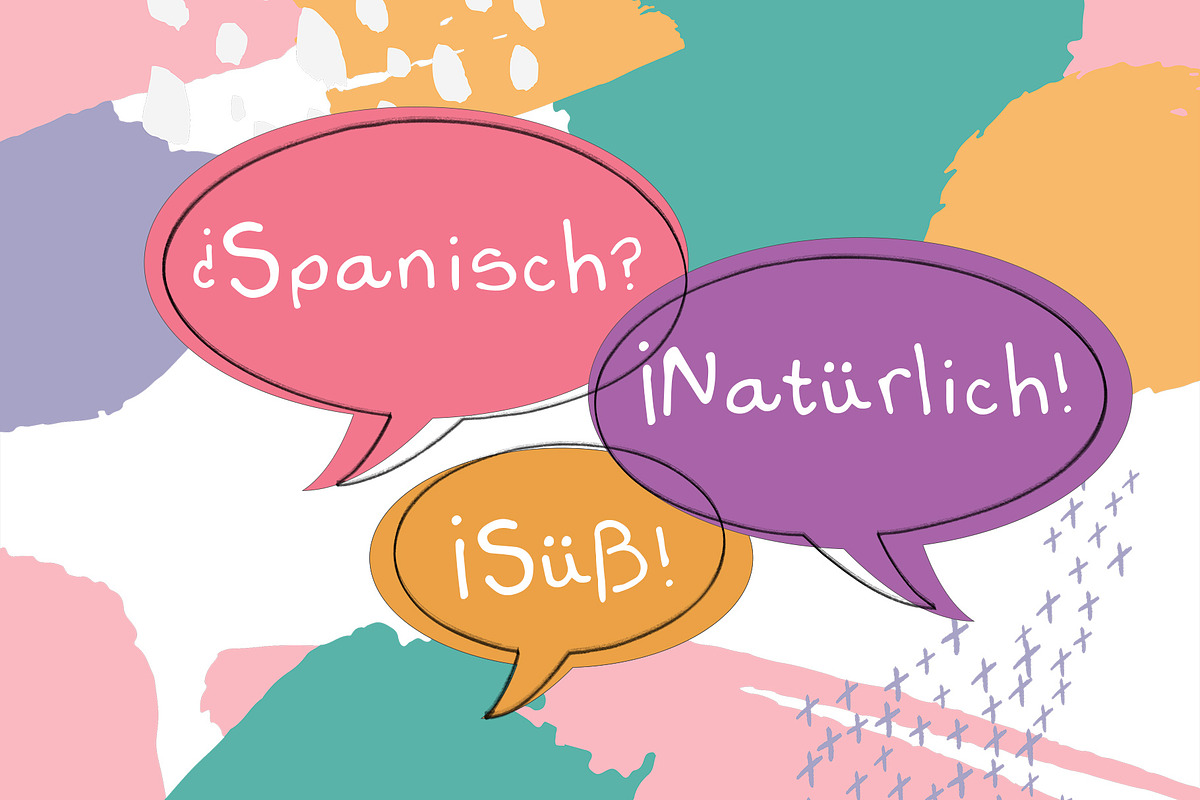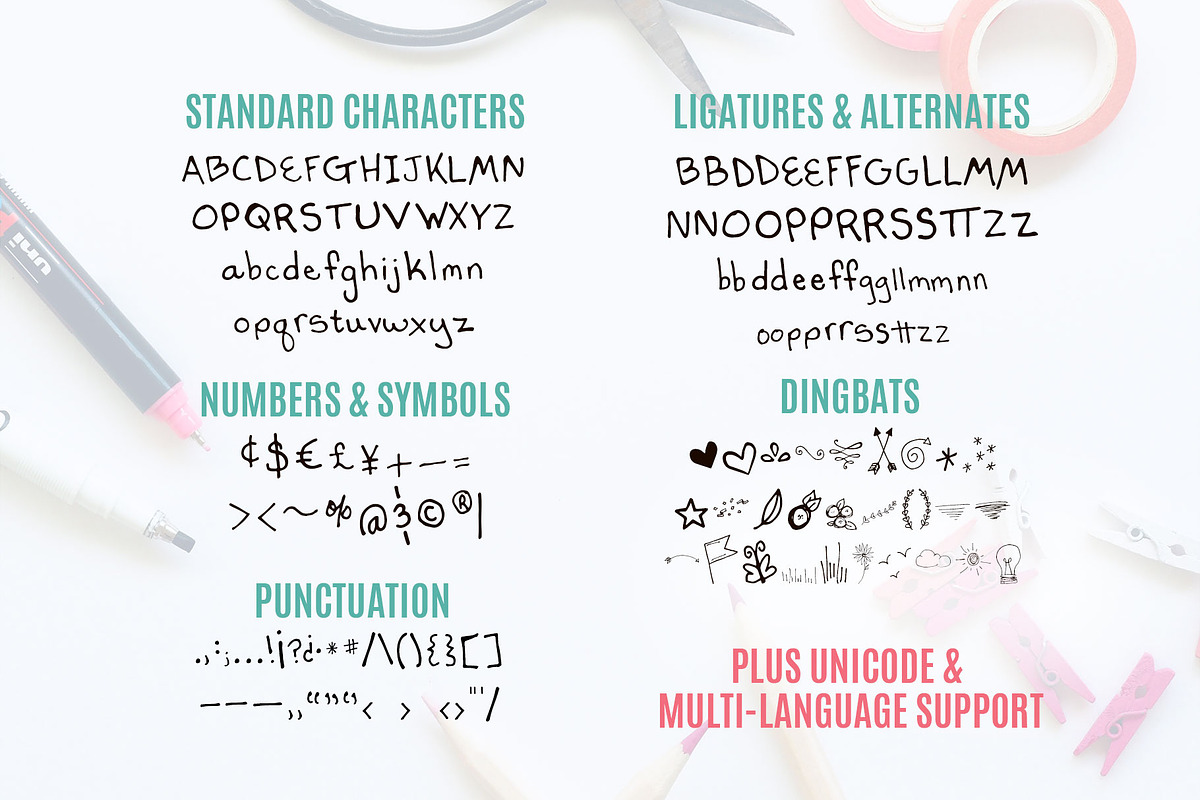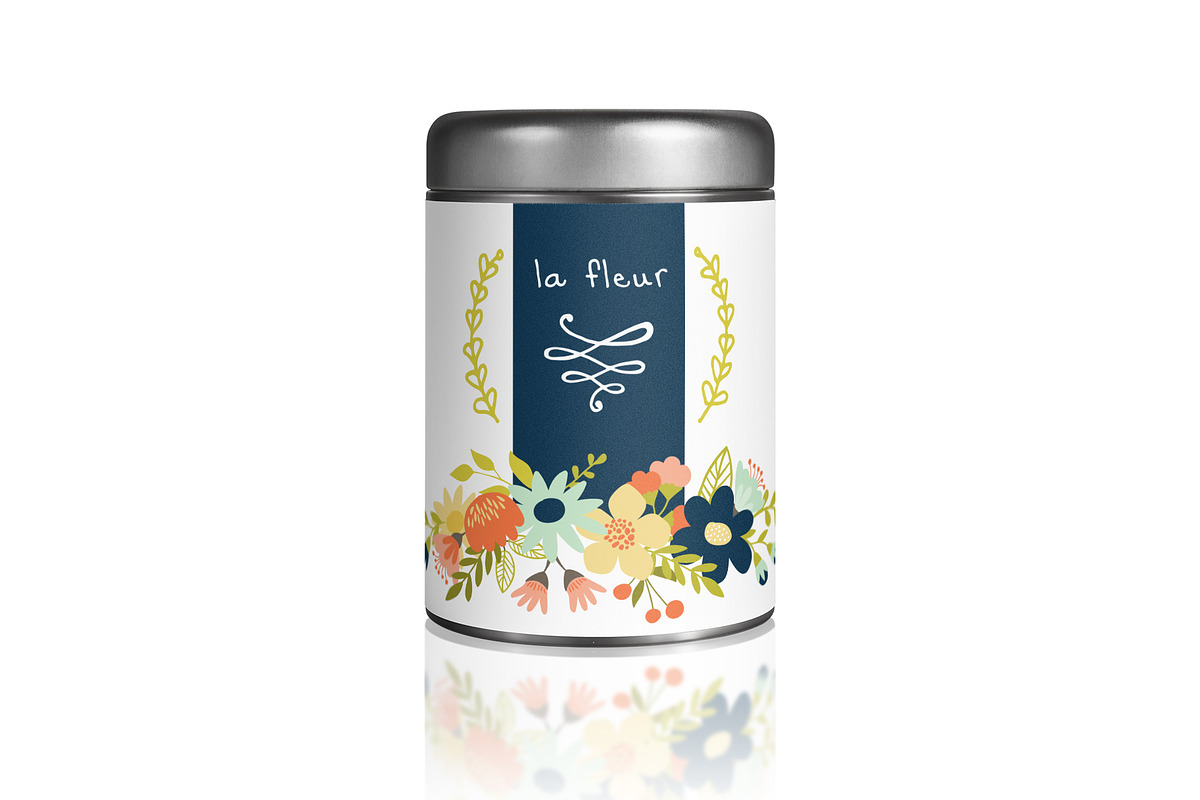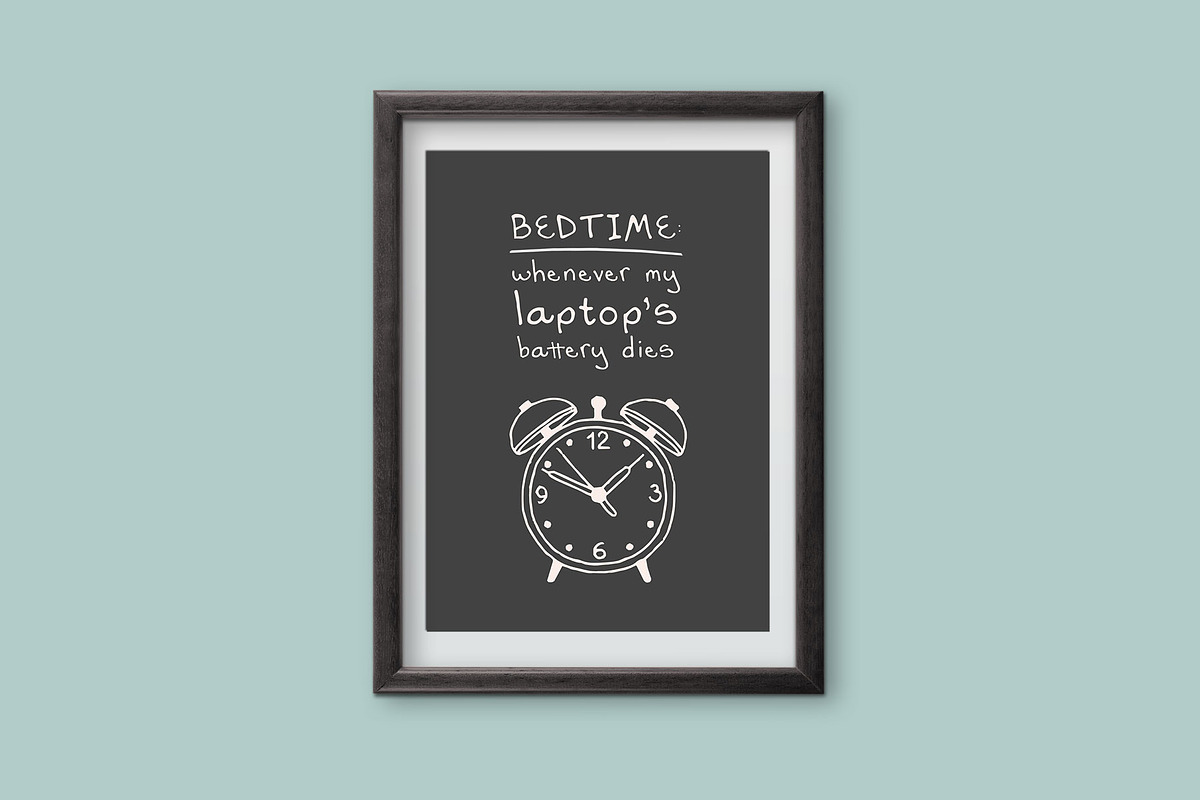
Happy Thoughts
This cheerful, hand-drawn typeface can be nostalgic (think junior high love notes) as well as reflective (I'm looking at you, journals). Use it to interject some cheer and realism into everything from logos and branding to surface and book design, and social media posts. Looks great as body copy too!
- Happy Thoughts Regular with standard ligatures and a handful of stylistic alternates
- Numbers, symbols, and punctuation
- 30+ fun, doodle-style dingbats
- Multilingual support for Western European languages (Please test your characters below)